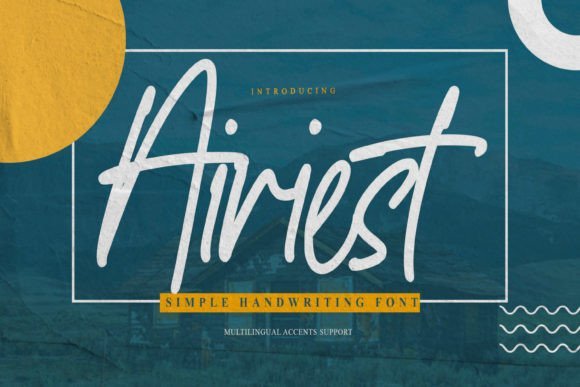
The Birth of a New Era in Typography
Have you ever been in the midst of a creative storm, where ideas are flowing and your imagination knows no bounds? That’s exactly what happened to us when we stumbled upon the Ai Font – a game-changing addition to the world of typography. With its unique blend of vintage charm and modern flair, this stunning font has been making waves in the design community, and we’re here to dive into its magic.
| 👤 Author | NPNaay |
As a versatile and eye-catching font, Ai Font is perfect for logos, branding, invitations, social media posts, and much more. Its thick, vibrant lines and bold personality make it an instant head-turner, guaranteed to capture attention and leave a lasting impression. For designers, Ai Font is a valuable asset, offering a fresh and exciting way to express their creativity and bring their ideas to life.
Ai Font Key Features
- Unique Character Set: Ai Font features a unique character set that includes over 500 glyphs, including Latin, Cyrillic, and Greek alphabets, as well as various symbols and punctuation marks
- Advanced Typography: Ai Font includes advanced typography features such as ligatures, swashes, and contextual alternates, allowing for highly customizable and stylish typography
Ai Font Review
I recently had the chance to dive into Ai Font, a relatively new font design tool that claims to revolutionize the way we create and customize typography. My experience was a mixed bag, but here’s what I think.
- Intuitive Interface: Ai Font’s UI is clean and easy to navigate, even for those without extensive design experience.
- Customization Options: The tool offers an impressive range of customization options, from font style and size to spacing and color.
- Speed and Performance: Ai Font is surprisingly fast, even with complex designs.
- Limited Advanced Features: While Ai Font has a solid foundation, it lacks some of the more advanced features found in other design tools.
- Export Options: The tool’s export options are limited, making it difficult to share designs in certain formats.
- Customer Support: I encountered some issues with customer support, which was slow to respond to my queries.
Overall, Ai Font is a solid choice for those looking for a user-friendly font design tool. While it may not have all the bells and whistles of other design software, it’s a great starting point for beginners and a reliable option for more experienced designers. With some tweaks to its advanced features and customer support, Ai Font could become a top contender in the design tool market.